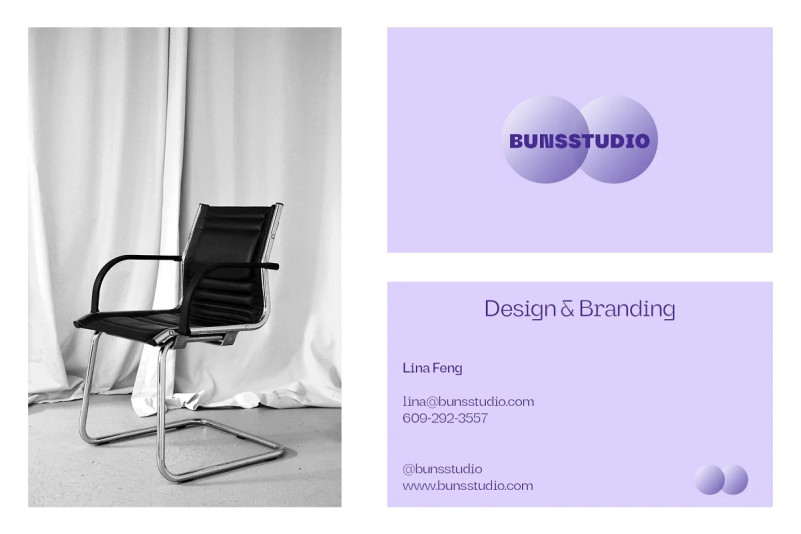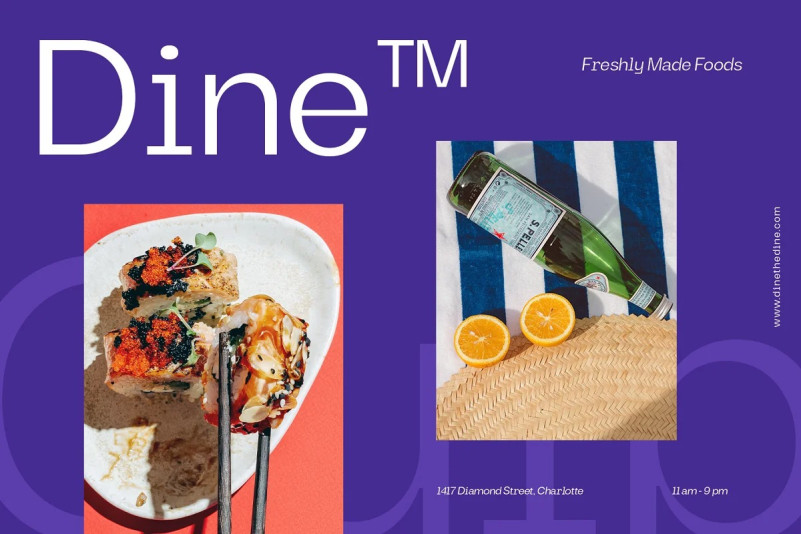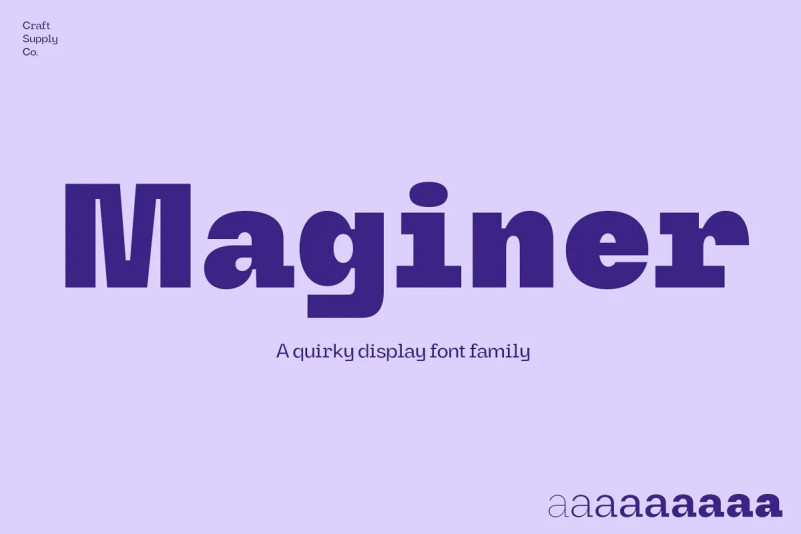
Maginer Font
Proudly present Maginer Quirky Display Font Family. Maginer is a representation of quirky yet formal type to give strong impression to your design. Ideal for display and text type, this typeface is one stop solution for big and small text purposes. A perfect choice to create almost all types of design projects like print materials. Just use your imagination and your project will become more alive and look great than ever with this typeface.